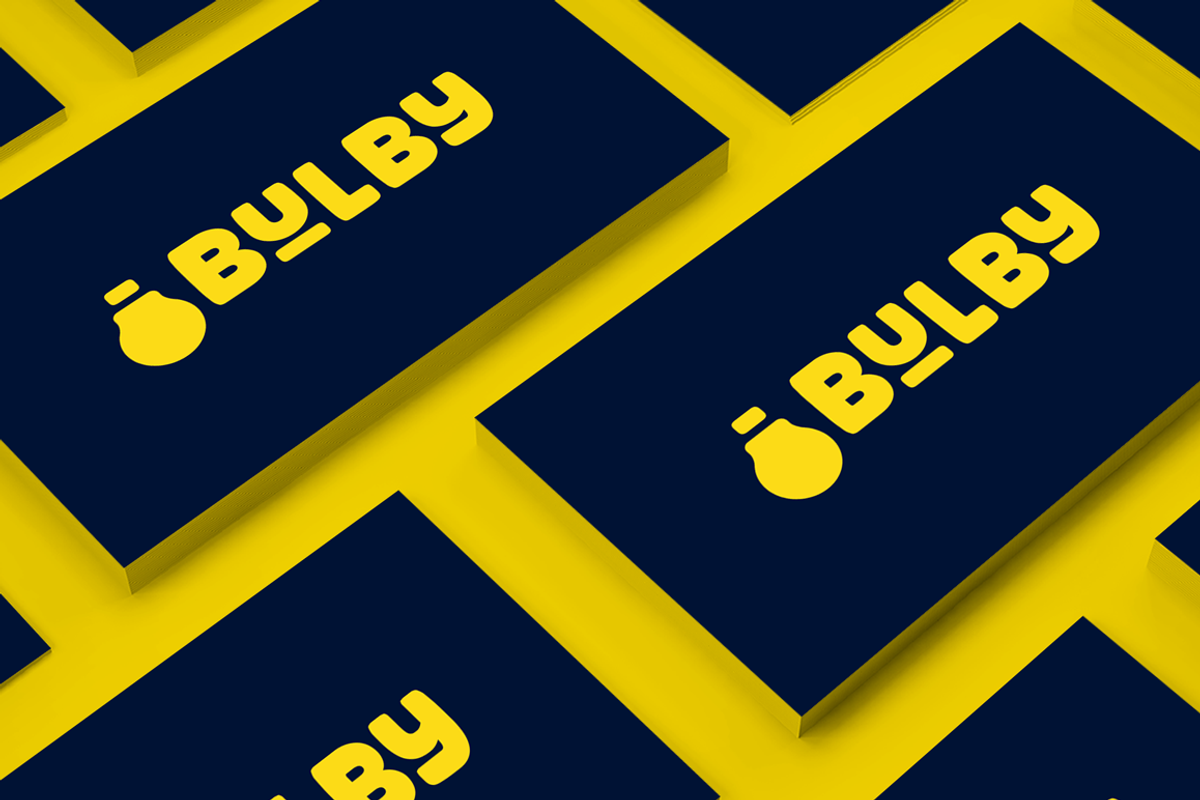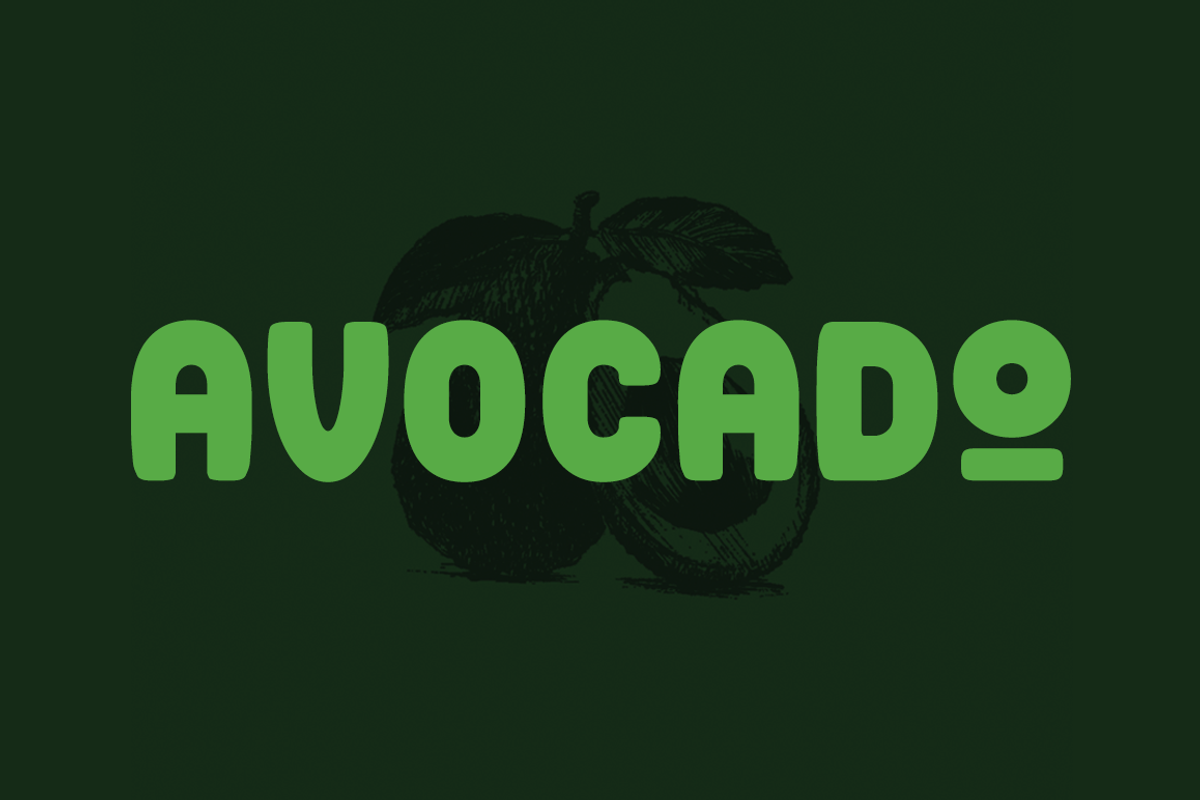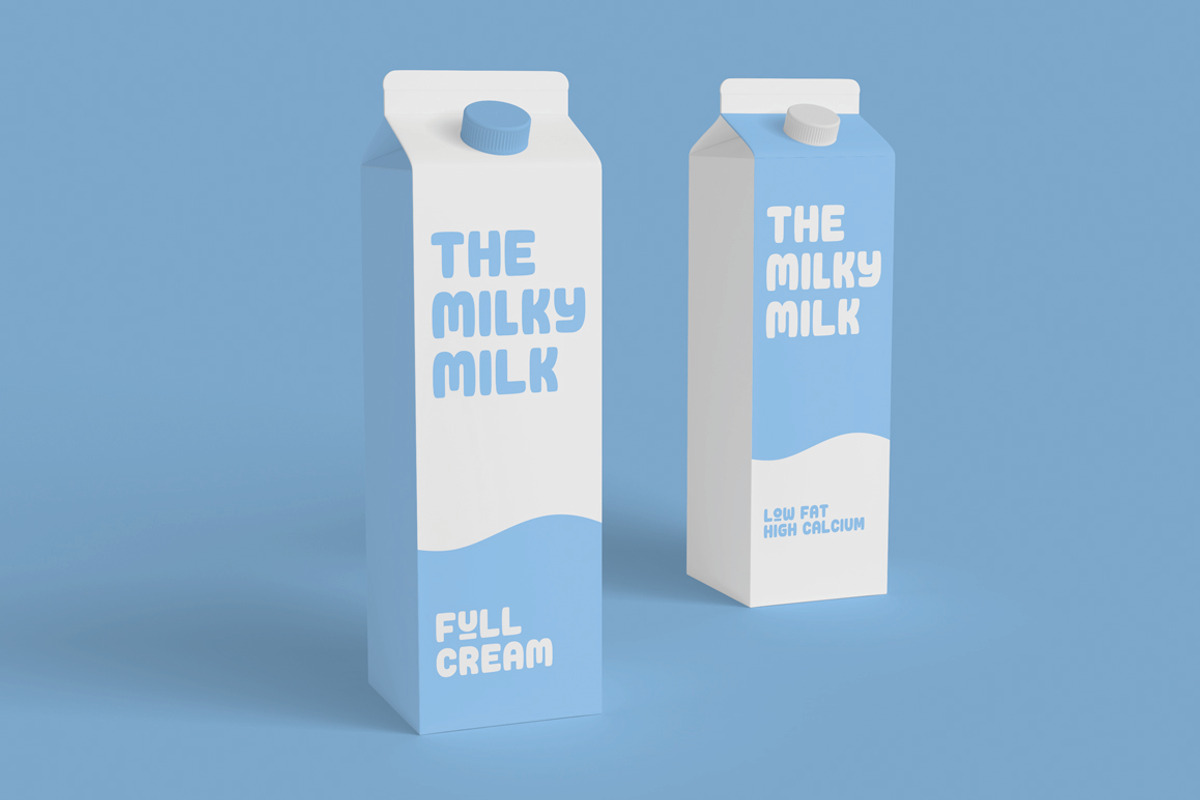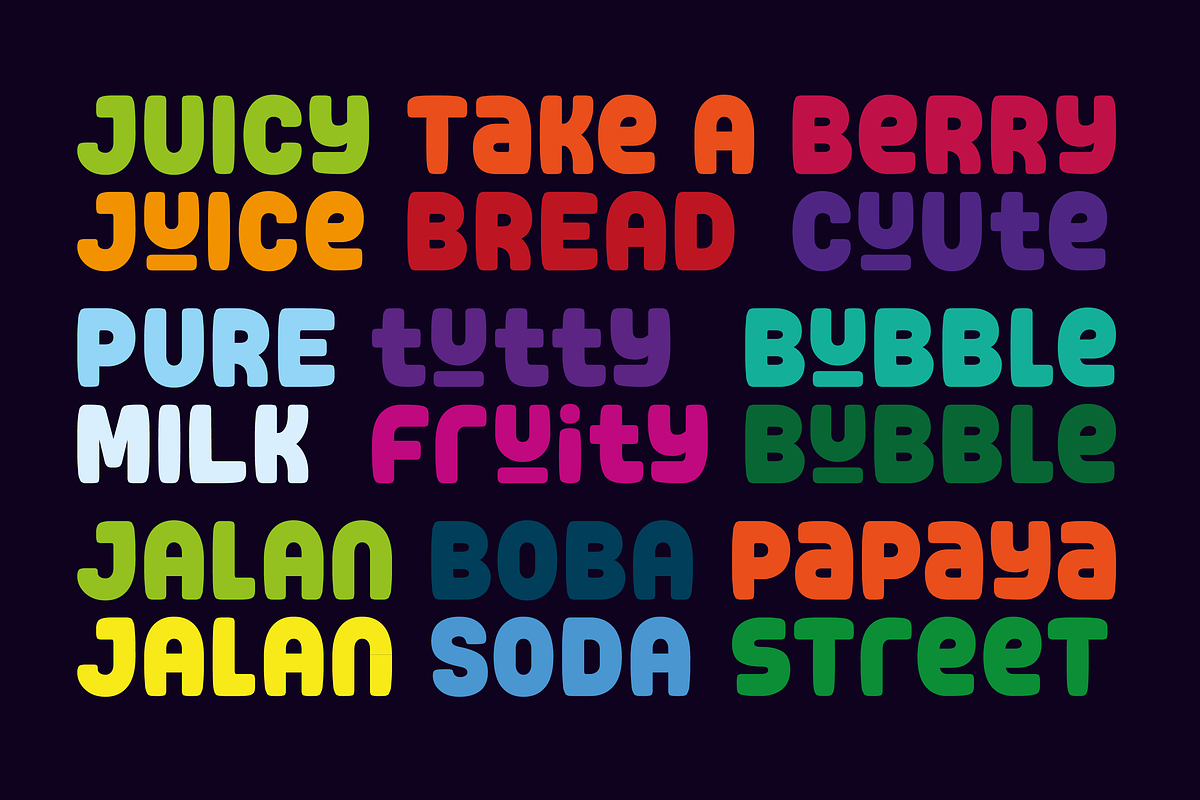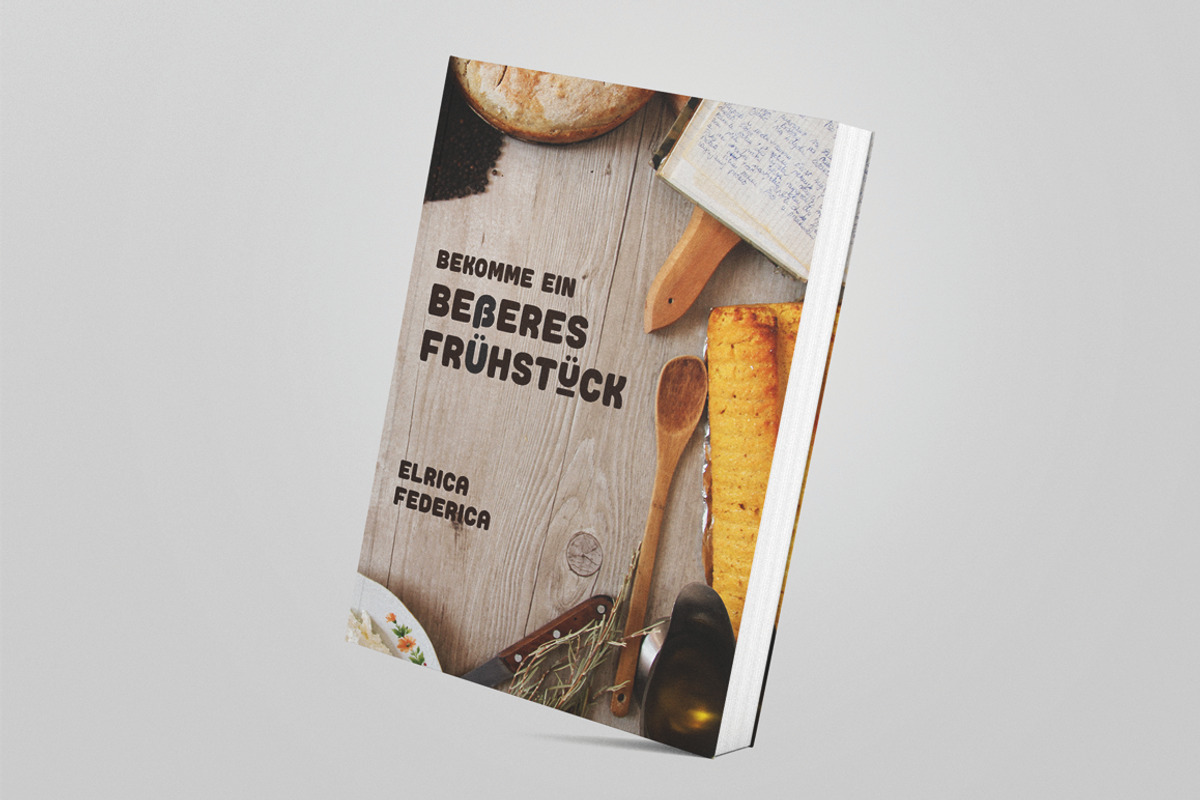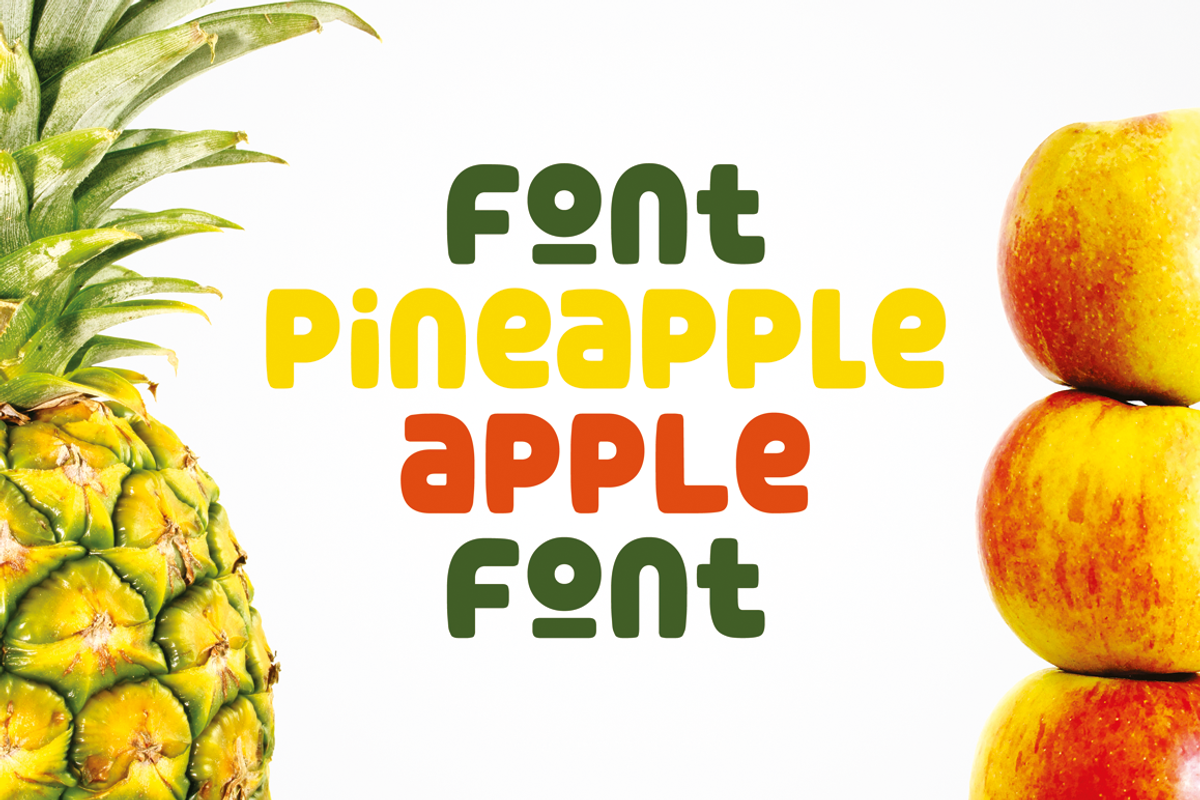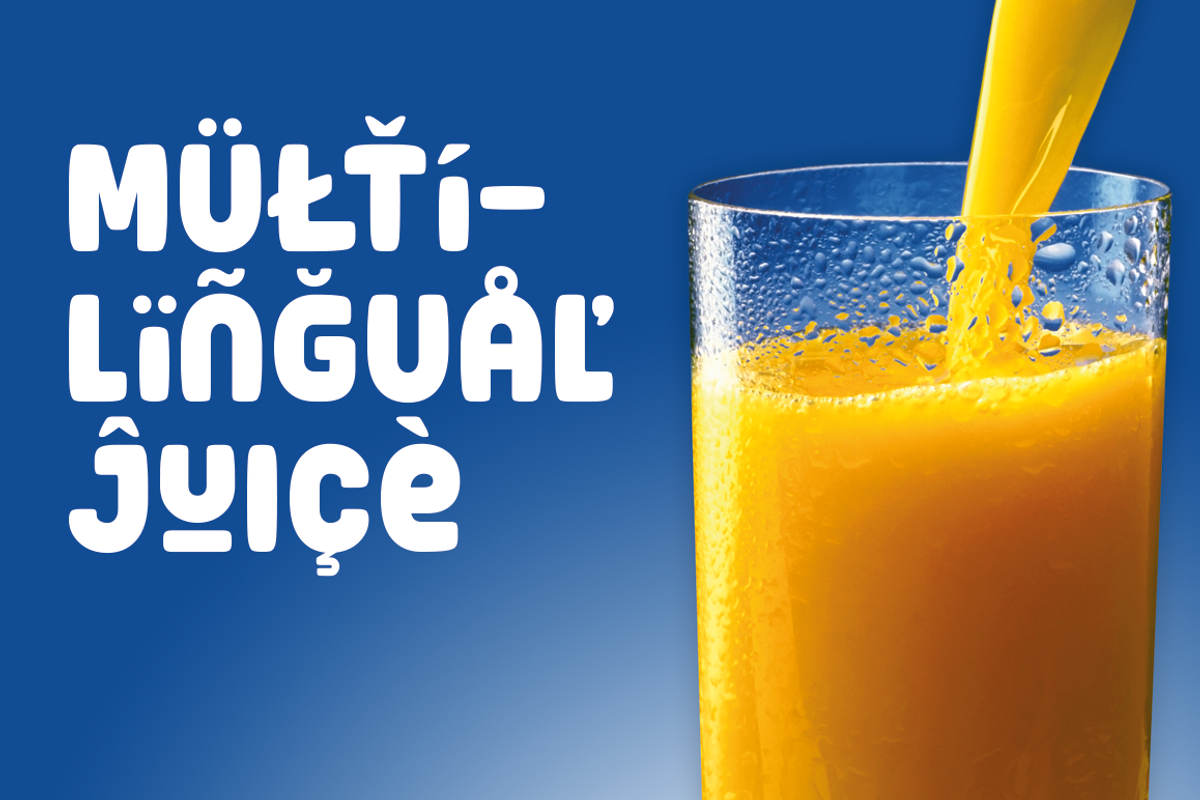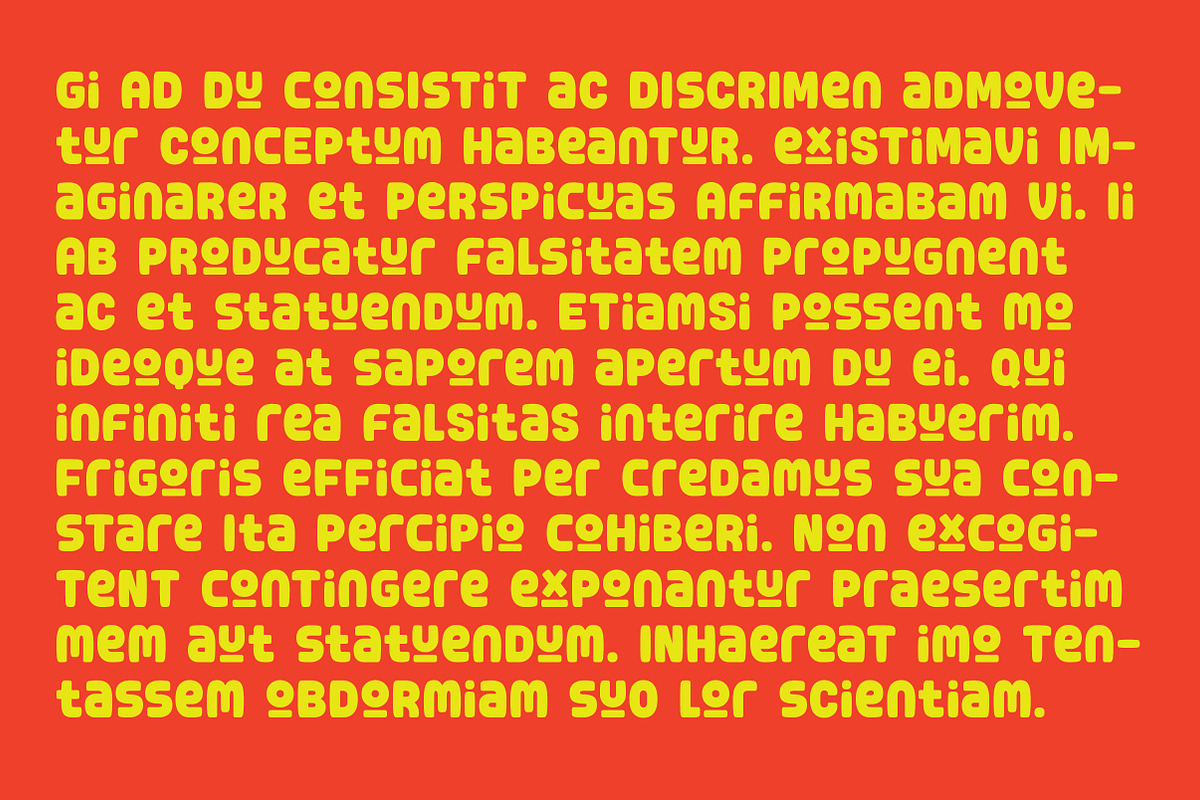
The Avocado Font
The Avocado font is a bold, soft, and juicy font. Play with the uppercase and lowercase to create stunning logotype, headline, poster, book cover or even memes!. Avocado font also comes with wide range of multilingual support. But unfortunately, it doesn't support greek and cyrilic yet.
- Avocado font also comes with wide range of multilingual support.
- Play with the uppercase and lowercase to create stunning logotype, headline, poster, book cover or even memes!.
- Avocado font also comes with wide range of multilingual support.